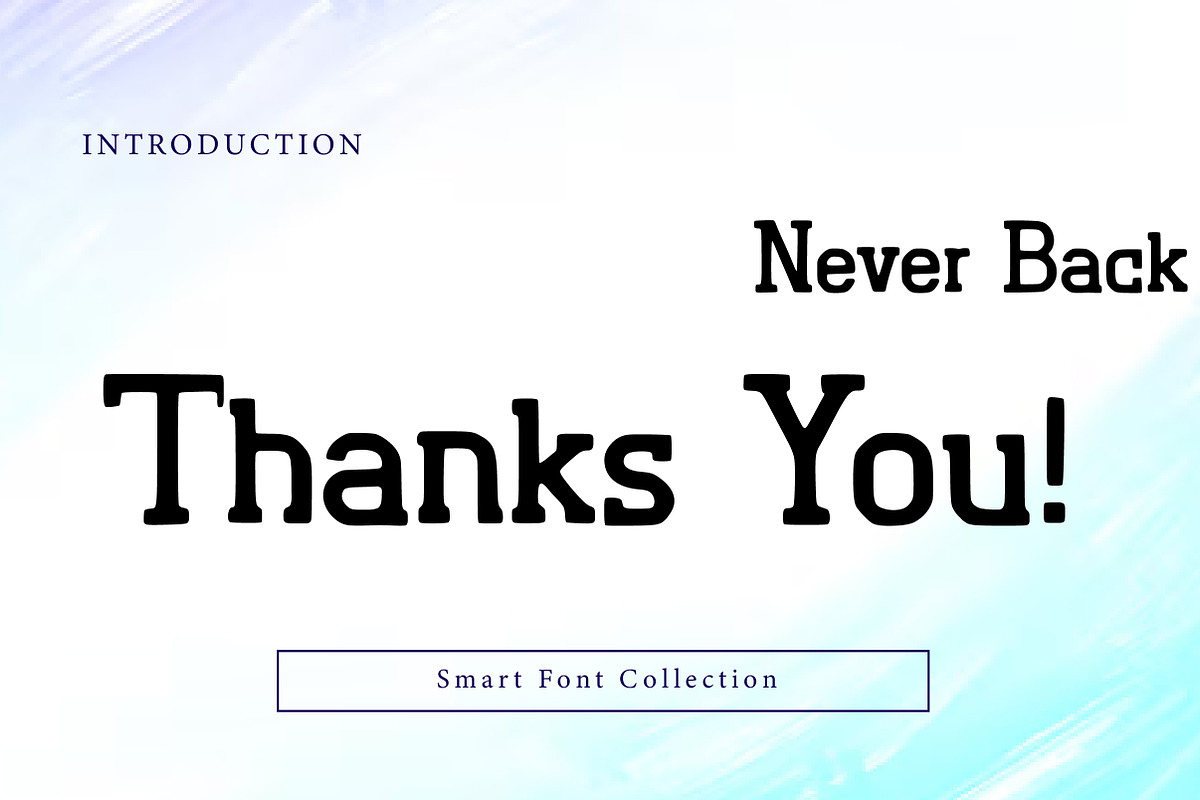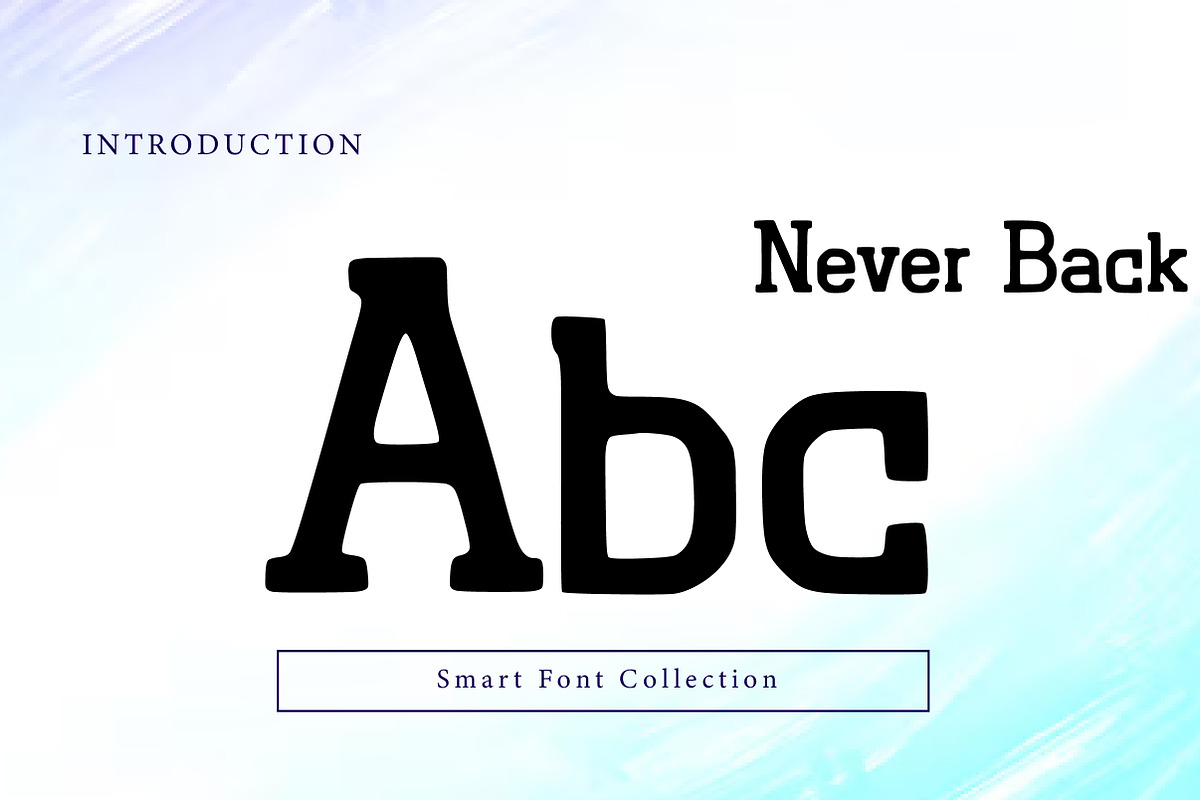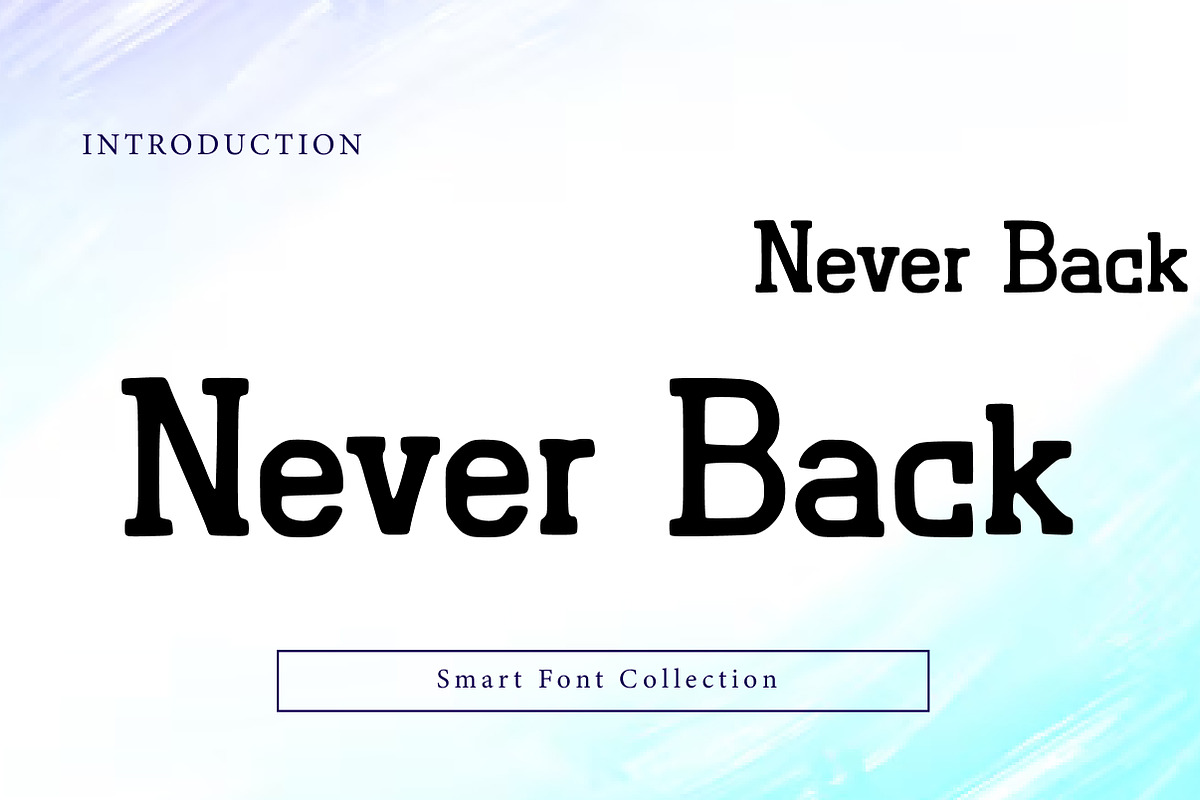
Never back
NeverBack is a bold, vintage-inspired slab serif display font with a strong, confident presence and slightly softened edges. Its sturdy letterforms and classic Western/retro feel make it perfect for logos, badges, labels, posters, t-shirt designs, packaging, and headline typography that needs power and readability. Use it for heritage branding, coffee and whiskey labels, Americana themes, sports graphics, streetwear, and bold editorial titles.